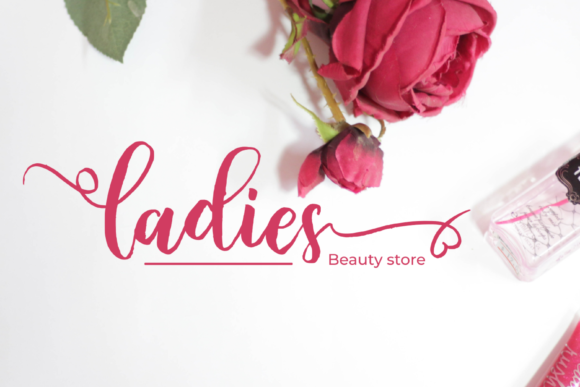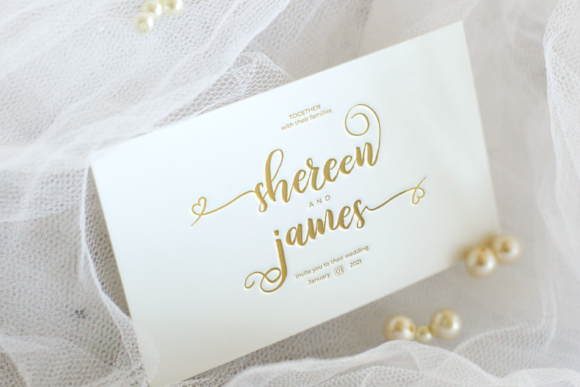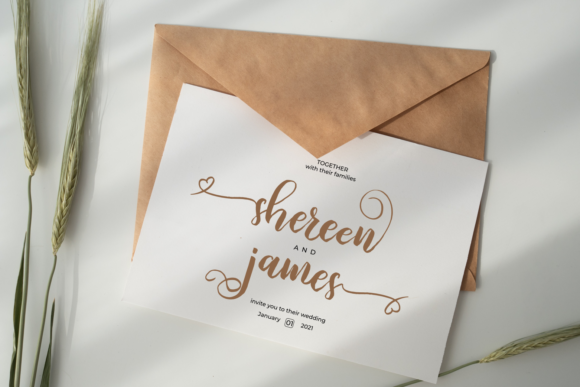
Introduction to Sharley Font
As designers, we’ve all been there – staring at a blank canvas, searching for the perfect font to bring our creative project to life. It’s the moment of truth when the entire design hinges on that one, special typeface. For many, that moment came when they discovered the enchanting Sharley Font. This romantic handwritten font has captured the hearts of designers worldwide, and for good reason.
With its beautiful, high-quality design and PUA encoded glyphs, Sharley Font is the perfect design resource for any project that requires a touch of elegance and personality. Whether you’re crafting a wedding invitation, a thank you card, or a custom logo, Sharley Font is sure to add a unique and romantic flair to your design.
Key Features of Sharley Font
- High-quality design for creative projects: Sharley Font is ideal for designers looking for a unique and stylish font to enhance their projects.
- High-resolution design: The font is designed at 300 DPI, making it suitable for high-quality prints and digital displays.
- Unique characteristics: Sharley Font features a distinctive, hand-drawn design with a mix of modern and vintage elements, making it stand out from other fonts.
Honest Review: Sharley Font
Upon closer inspection, I was impressed by the high quality of the font. The clean lines and elegant design make it perfect for a variety of design applications. I particularly enjoyed using it for a logo design, where its transparent background feature came in handy.
- Only available in a limited number of font styles
- May not be suitable for more complex design projects
Overall, I’m quite impressed with the Sharley Font. It’s a great design resource that’s perfect for simple design tasks. While it has some limitations, I think it’s well worth the download and I’d definitely recommend it to other designers.
Sharley Font is a high-quality, free download design resource perfect for creative projects. With its transparent background, this versatile font can be used in various applications to add a touch of elegance and sophistication.
Tips for Getting the Most Out of Sharley Font
For optimal results, use Sharley Font in combination with other design elements, such as graphics and images, to create visually appealing and engaging designs.
Sharley Font is ideal for a variety of projects, including:
- Wedding invitations and stationery.
- Business cards and marketing materials.
- Editorial and publishing projects.
Q: Does Sharley Font have a transparent background?
Yes, Sharley Font has a transparent background, making it perfect for use on images or designs with complex backgrounds. The font’s transparent design allows it to blend seamlessly with other design elements, giving you more creative freedom in your projects.